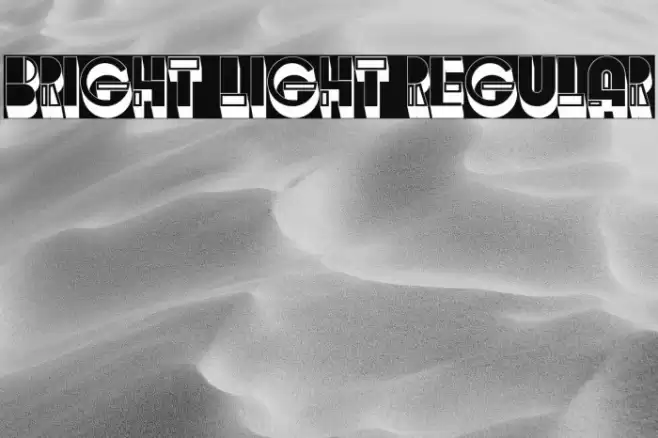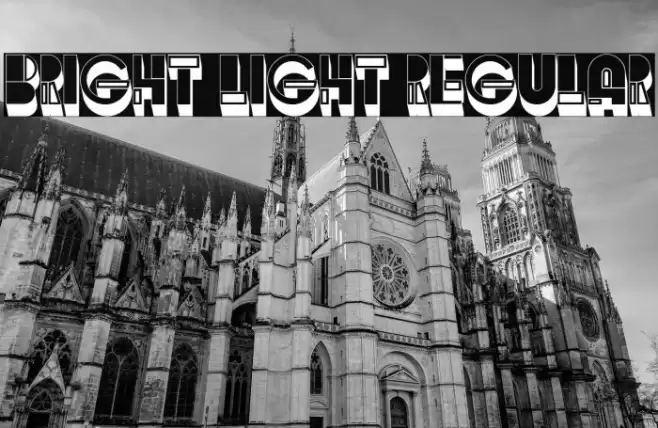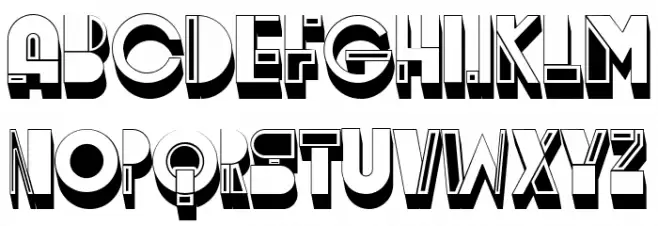
Bright Light Regular Font
Bright Light Regular Description
This font features a bold, three-dimensional design with a strong shadow effect, giving it a striking and impactful appearance. The letters are uppercase and have a geometric, block-like structure with clean lines and sharp angles. The shadowing adds depth and a sense of movement, making it ideal for eye-catching designs. The font's style is reminiscent of retro or vintage aesthetics, yet it maintains a modern edge through its precise and clean execution. The characters are evenly spaced, ensuring readability while maintaining a bold presence.
A bold, three-dimensional font with strong shadow effects and geometric structure from Uncategorized fonts.
- Proposed Projects: Ideal for poster designs, headlines, logos, and any project requiring a bold, attention-grabbing typeface.
- Overall Style: Modern, Vintage